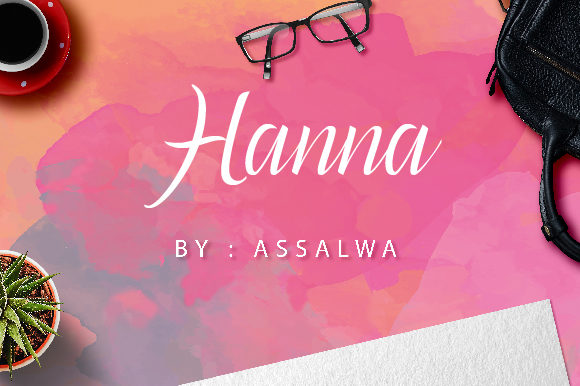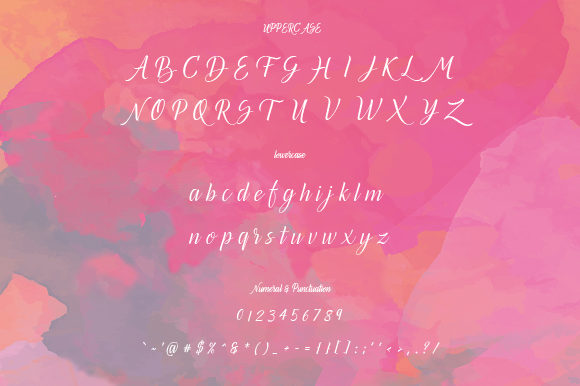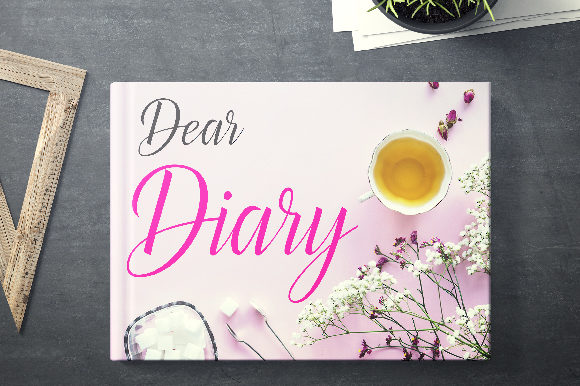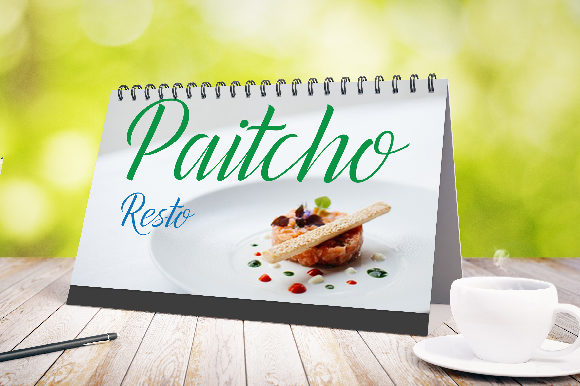
Hanna Font
About Hanna Font
The Hanna is an amazing calligraphy script. It has a modern style with an elegant touch.
It can be used for various purposes, such as headings, signature’s, logos, wedding invitations, t-shirts, letterheads, signage’s, labels, news, posters, badges, and much more!